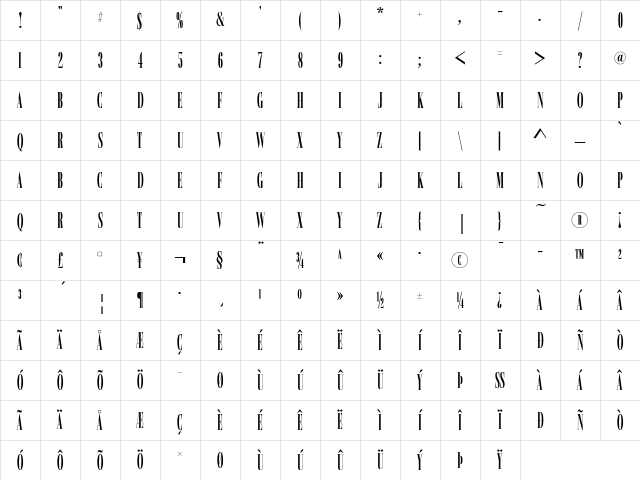
Basilia Compress D Medium
Design Context for Basilia Compress D
Basilia Compress D is a composed and adaptable typeface that performs quietly and consistently across a wide range of design contexts.
Pro Tip: Use Basilia Compress D in both headline and body roles to test its range before committing to a single application.